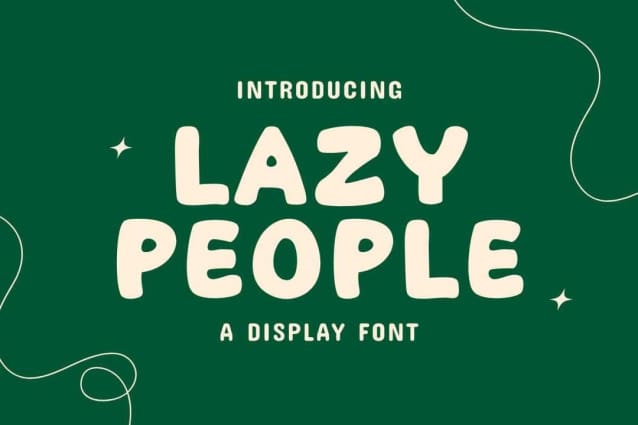
Lazy People Font
Lazy People Font is a chunky, comic, and cartoon display font. With its neat and joyful personality, this font will enhance any project you wish to create!